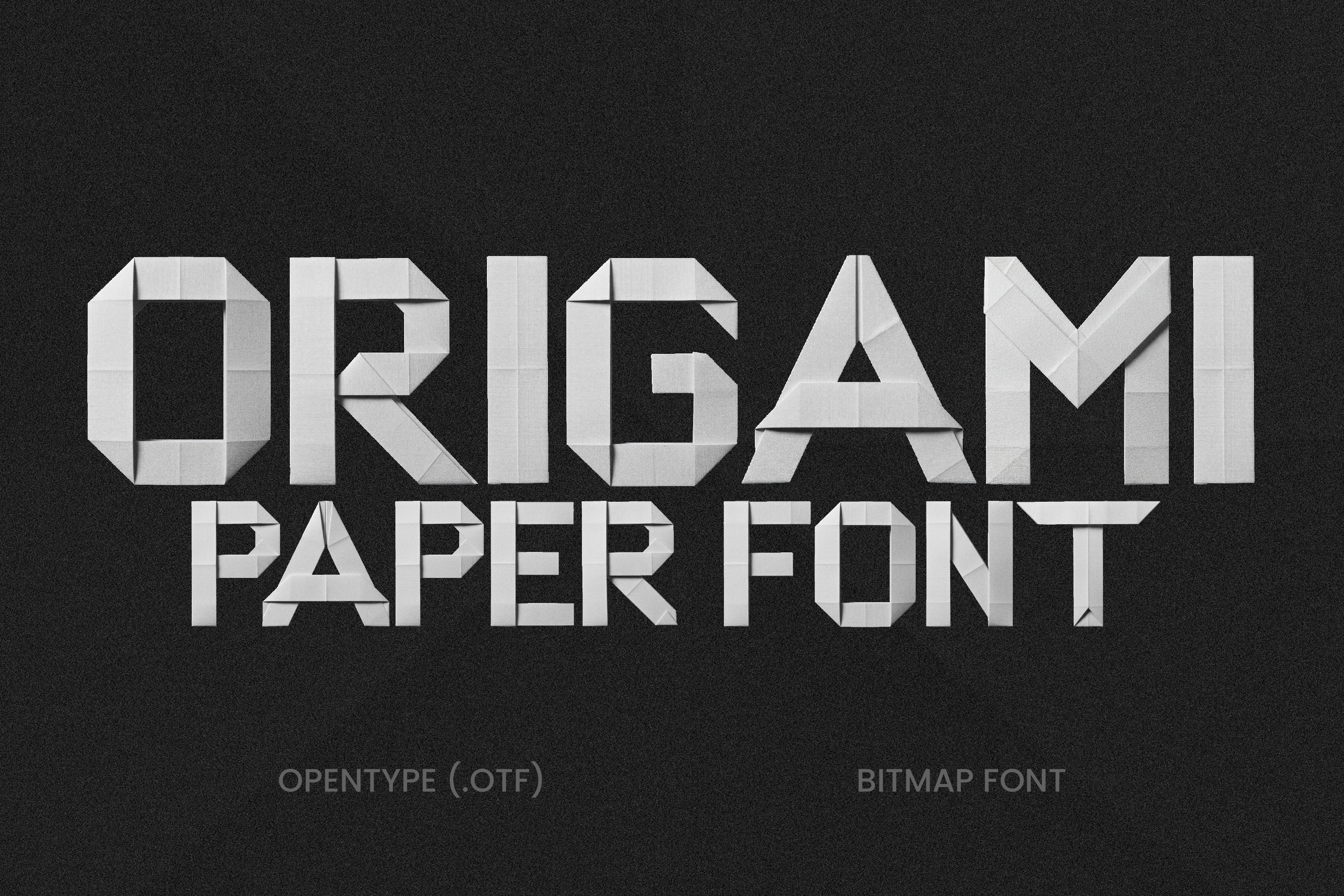
Origami - Folded Paper Font
Bring the tactile sensation of real paper into your digital designs. The Origami Paper Font isn't just a flat typeface; it is a meticulously designed set of letters that captures the sharp creases, subtle shadows, and authentic texture of hand-folded paper.
Whether you are designing a children's book, creating a craft blog header, or making unique wall art, this font adds an instant "pop" of 3D realism that flat fonts just can't match.
- DIY Craft Blogs & YouTube Thumbnails
- Children’s Book Covers
- "Paper Anniversary" Gifts (1st Year)
- Geometry & Math Worksheets
- Art Exhibition Posters (perfect for anything related to Japanese culture)
- Eco-Friendly Branding